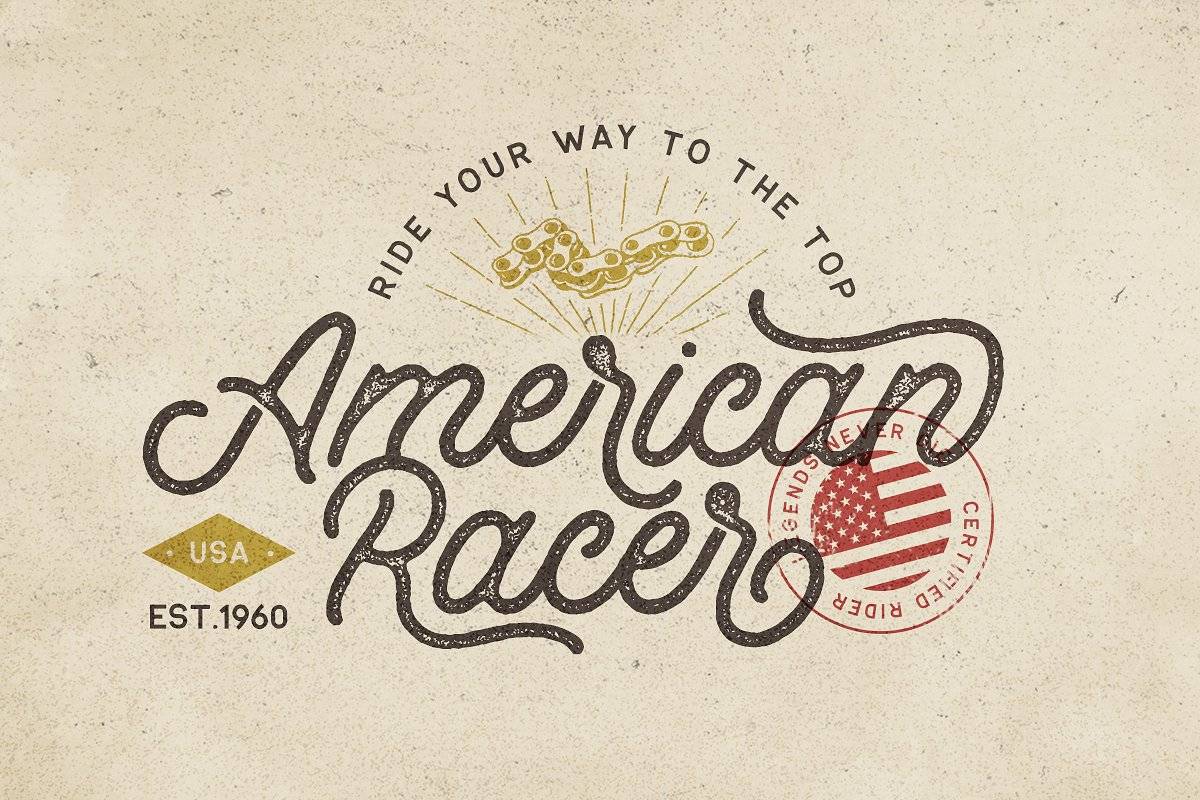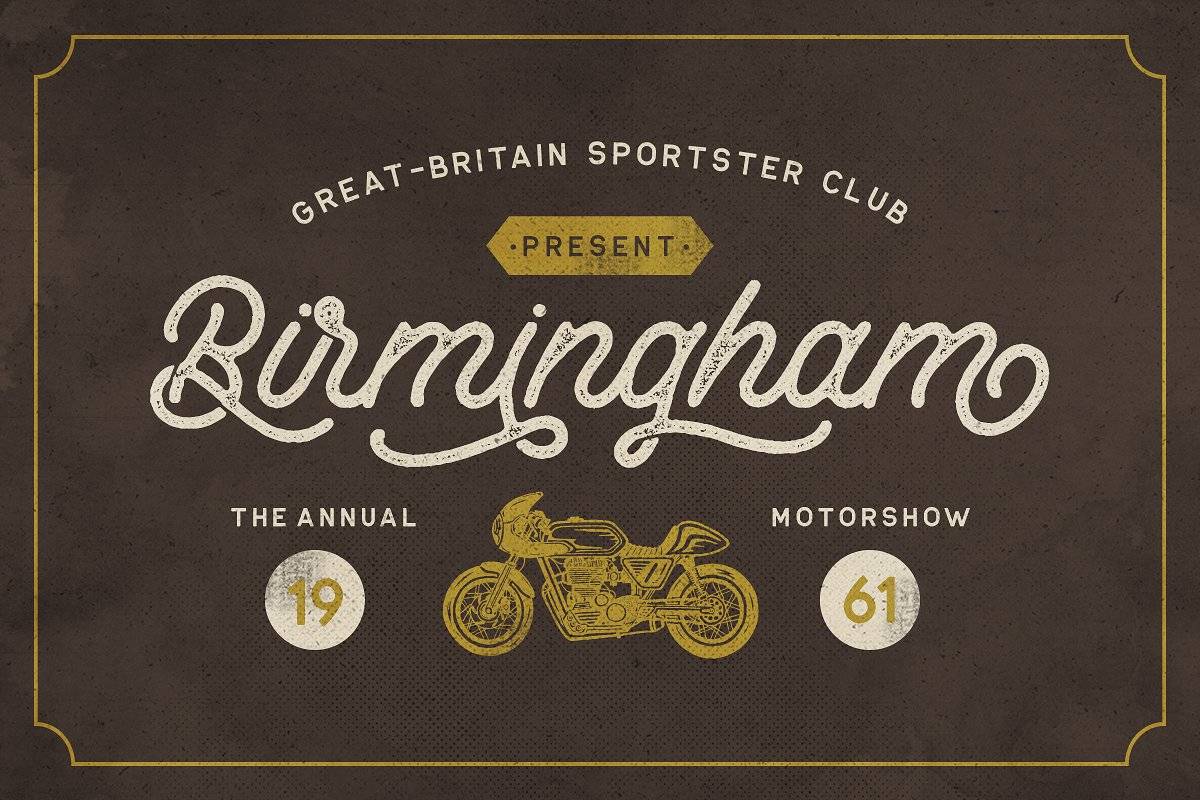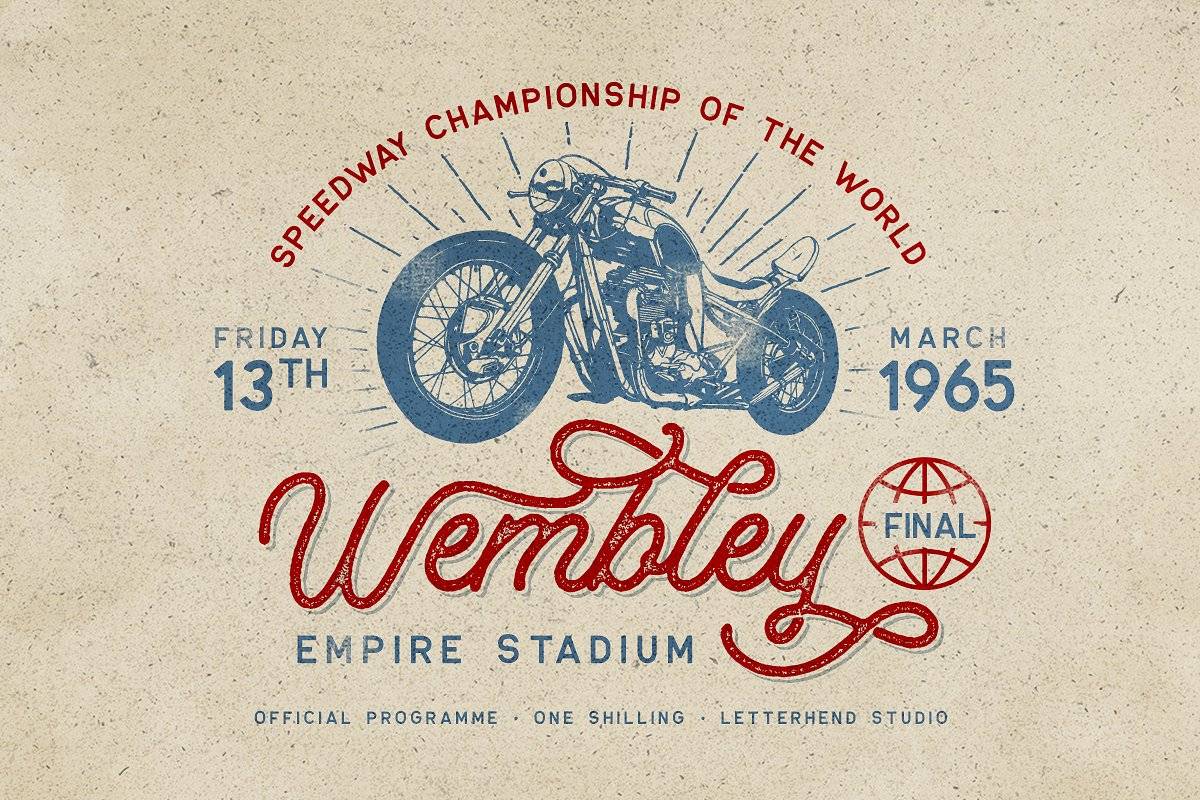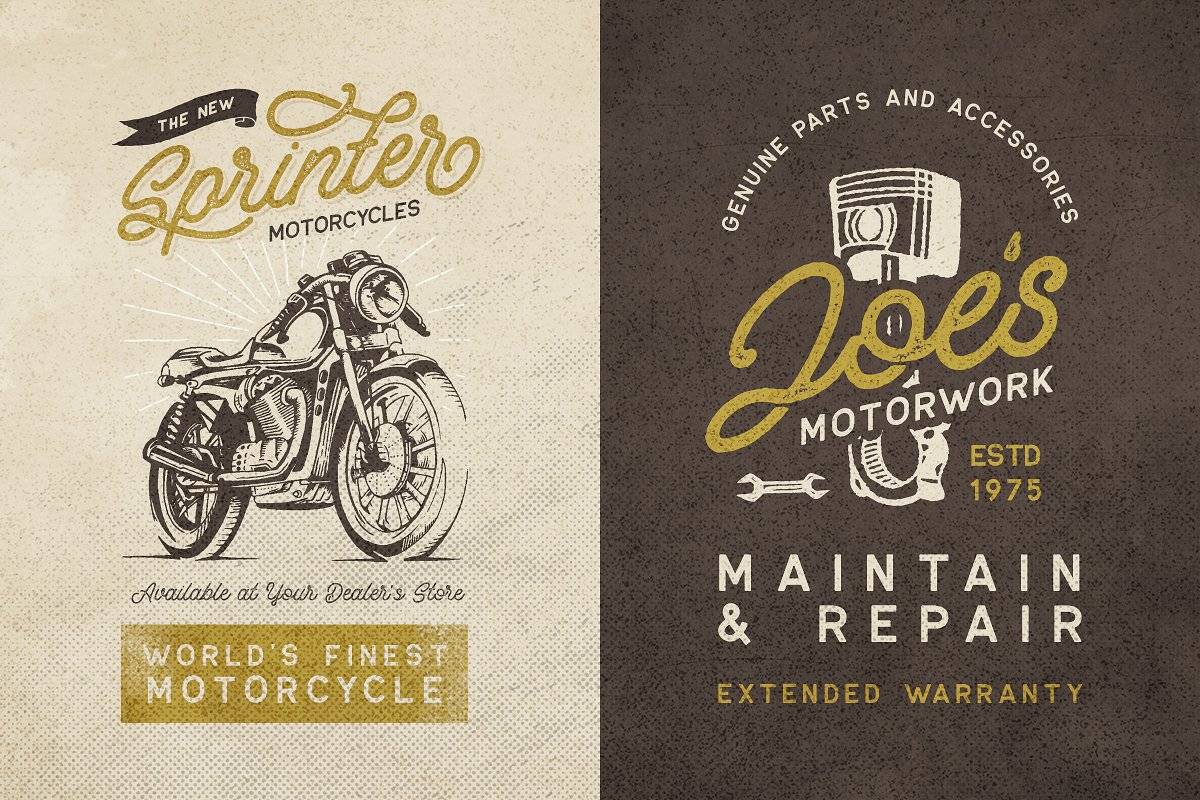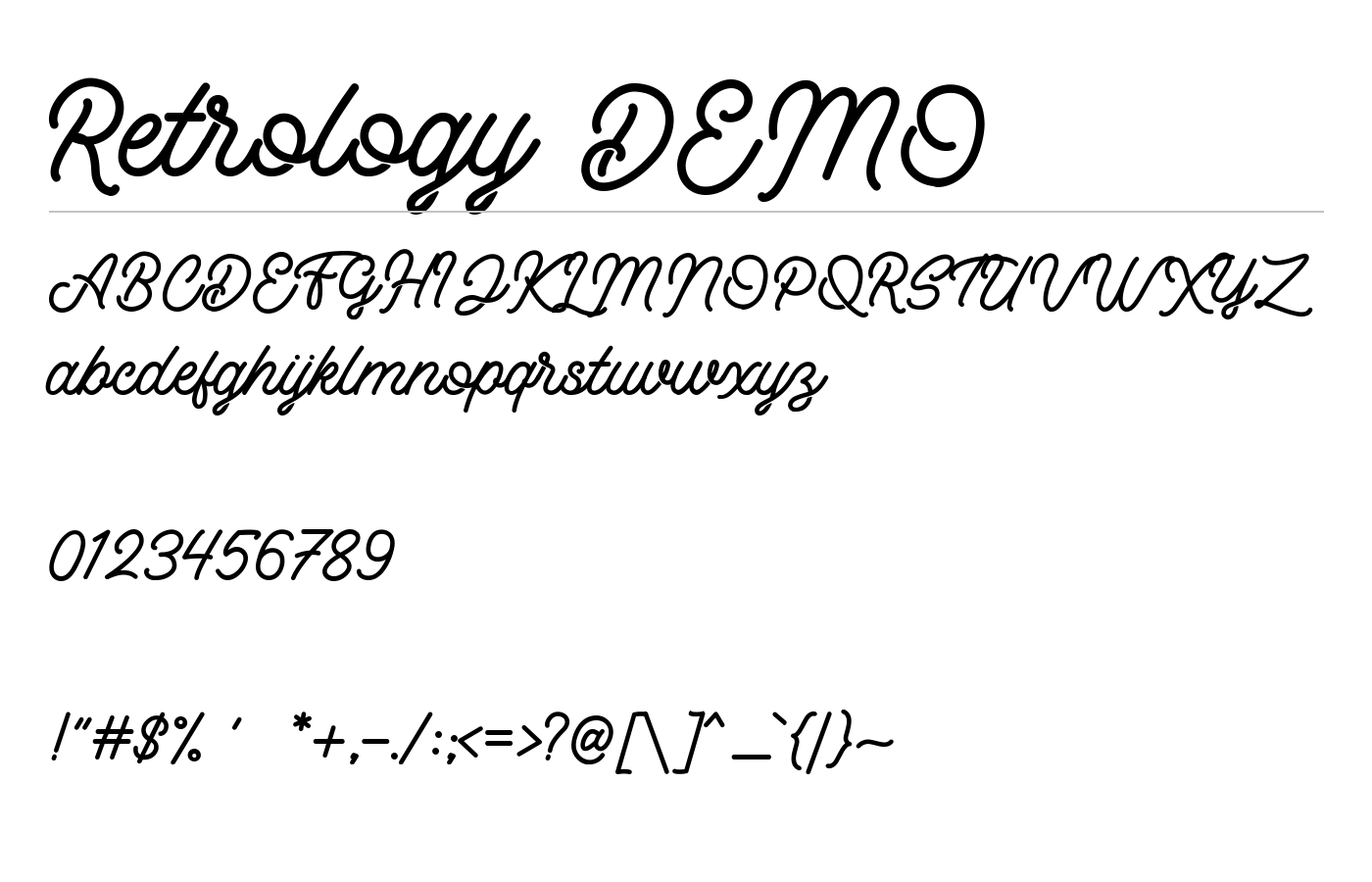
Retrology is a cursive script font with a casual, vintage feel, characterized by smooth, consistent strokes and moderate contrast that give it an elegant yet approachable style. Its rounded letterforms and balanced spacing make it ideal for designs that seek a nostalgic or handcrafted touch, perfect for branding, invitations, or retro-themed projects. This font works well where a friendly, stylish script is needed to evoke charm and personality without sacrificing readability.
Retrology Font
About Retrology Font
| Font family | Retrology Font |